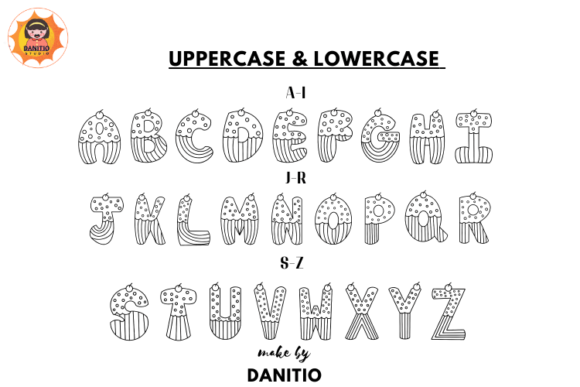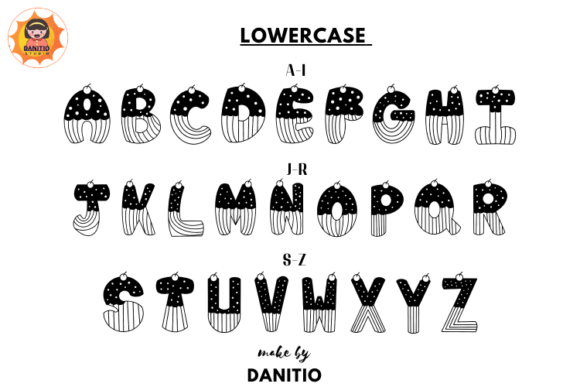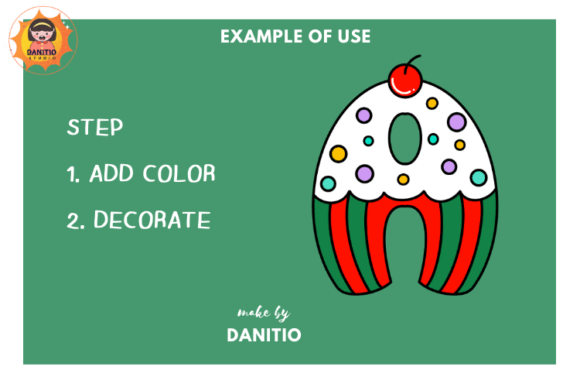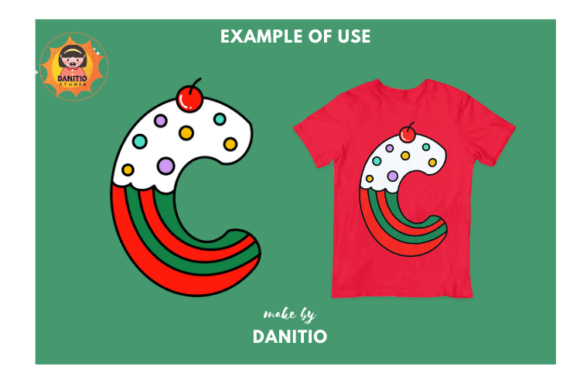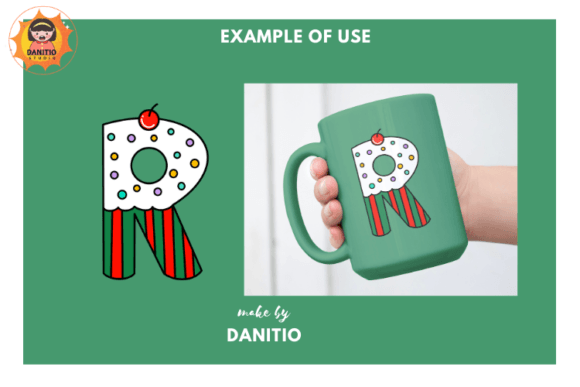
Christmas Cupcake Font: The Perfect Addition to Your Holiday Designs
Are you looking for a font that will add a touch of whimsy and fun to your Christmas-themed projects? Look no further than the Christmas Cupcake font! This adorable decorative font is perfect for the holiday season, and can help you create designs that are sure to spread joy and cheer.
What is the Christmas Cupcake Font?
The Christmas Cupcake font is a cute and playful font that is designed to capture the magic of the holiday season. With its fun and quirky style, this font is perfect for adding a personal touch to your Christmas designs. Whether you’re creating invitations, decorations, or gifts, the Christmas Cupcake font is sure to make your project stand out.
Features of the Christmas Cupcake Font
The Christmas Cupcake font has a number of features that make it perfect for your holiday designs. Some of the key features include:
- Cute and playful design: The Christmas Cupcake font has a fun and quirky design that is sure to add a touch of whimsy to your projects.
- Perfect for Christmas-themed projects: This font is specifically designed for the holiday season, making it perfect for Christmas-themed projects.
- High-quality design: The font is designed with high-quality graphics, ensuring that it looks great in any design.
Ideas for Using the Christmas Cupcake Font
The Christmas Cupcake font is versatile and can be used in a variety of ways. Here are a few ideas to get you started:
- Christmas invitations: Use the Christmas Cupcake font to create festive and fun invitations for your holiday party.
- Holiday decorations: Add a personal touch to your holiday decorations with the Christmas Cupcake font.
- Gift tags: Use the Christmas Cupcake font to create cute and personalized gift tags.
- Social media graphics: Add some holiday cheer to your social media graphics with the Christmas Cupcake font.
Tips for Getting the Most Out of the Christmas Cupcake Font
Here are a few tips for getting the most out of the Christmas Cupcake font:
- Experiment with different colors: The Christmas Cupcake font looks great in a variety of colors, so don’t be afraid to experiment and find the perfect color for your design.
- Use it with other holiday fonts: Combine the Christmas Cupcake font with other holiday fonts to create a unique and festive design.
- Add some holiday graphics: Add some holiday graphics, such as holly or snowflakes, to your design to make it even more festive.
| Font Name | Christmas Cupcake Font |
| Author | danita.kukkai |
The Christmas Cupcake font is a fun and playful font that is perfect for adding a touch of whimsy to your Christmas-themed projects. With its cute and quirky design, this font is sure to spread joy and cheer. Whether you’re a designer or crafter, the Christmas Cupcake font is a great addition to your holiday designs. So why not give it a try and see what festive creations you can come up with?